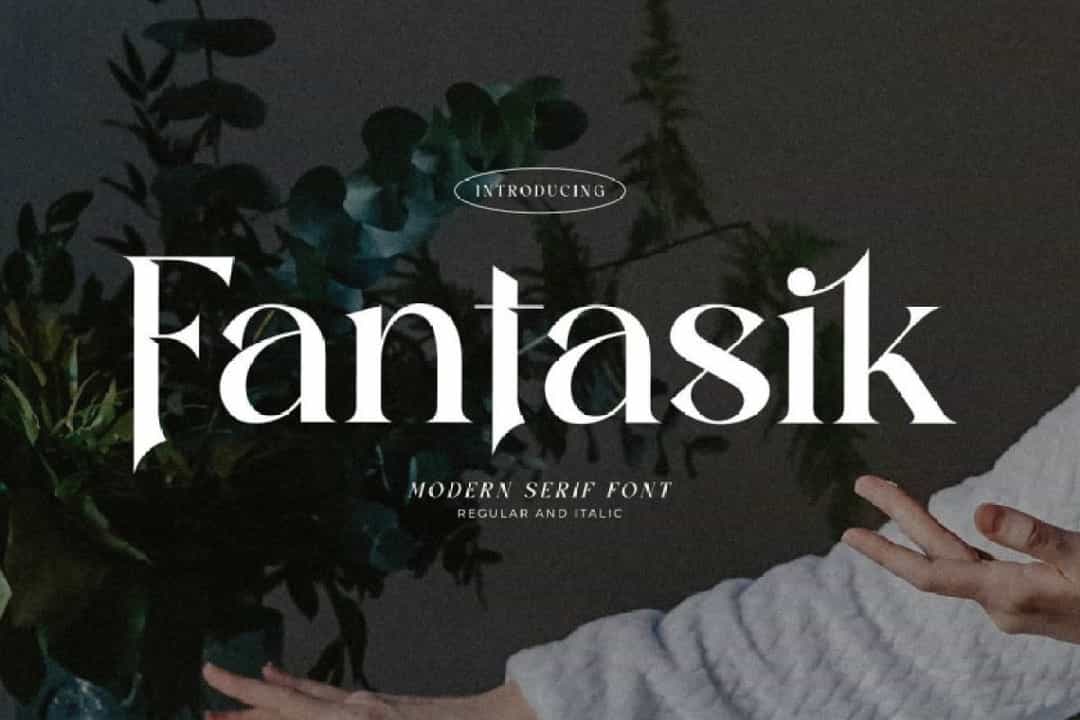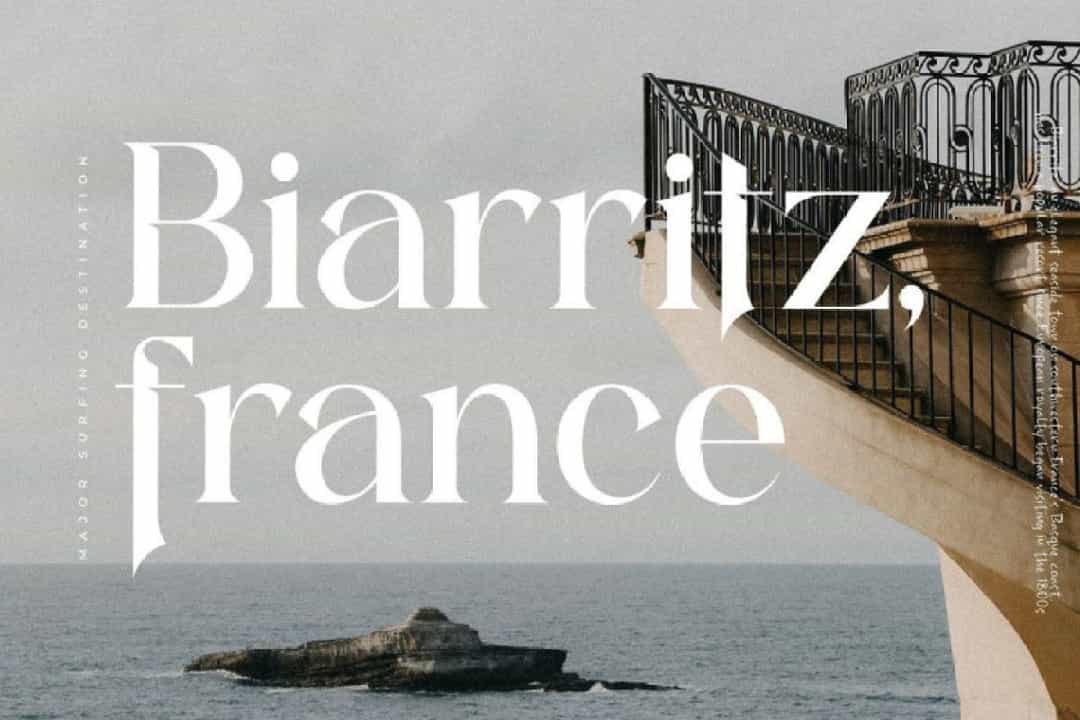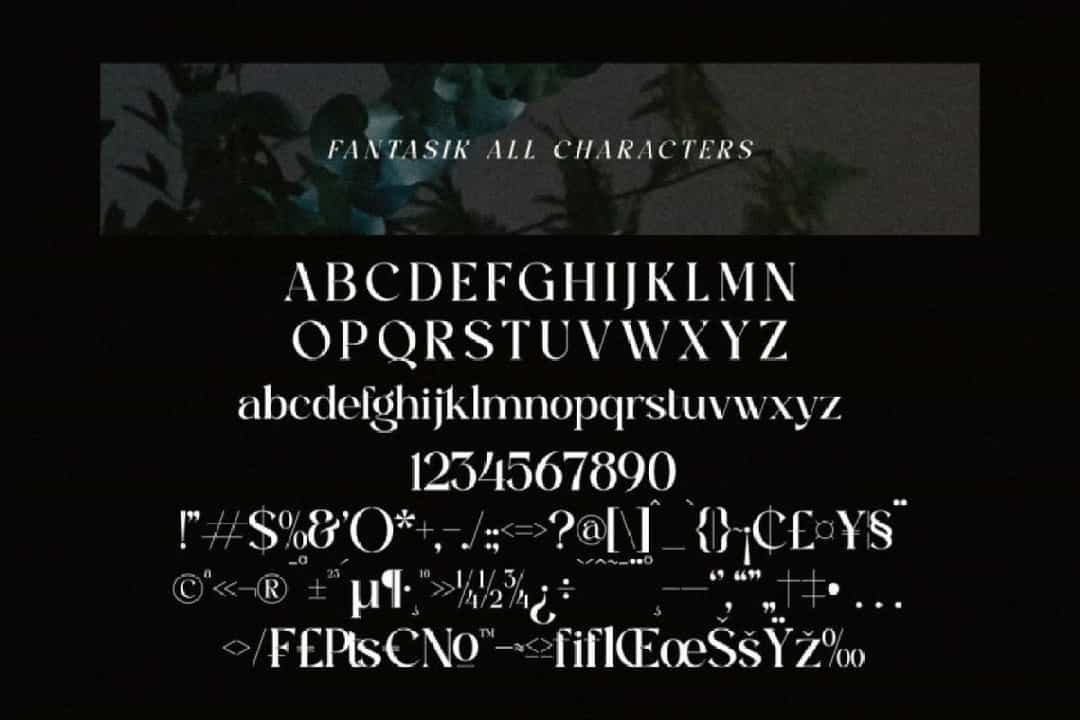
Fantasik can be described as an elegant and appealing serif typeface with a fashionable accent. This font was specifically created to suit luxurious projects incorporating elegant feminine themes. Furthermore, its use allows designers to create chic modern designs.